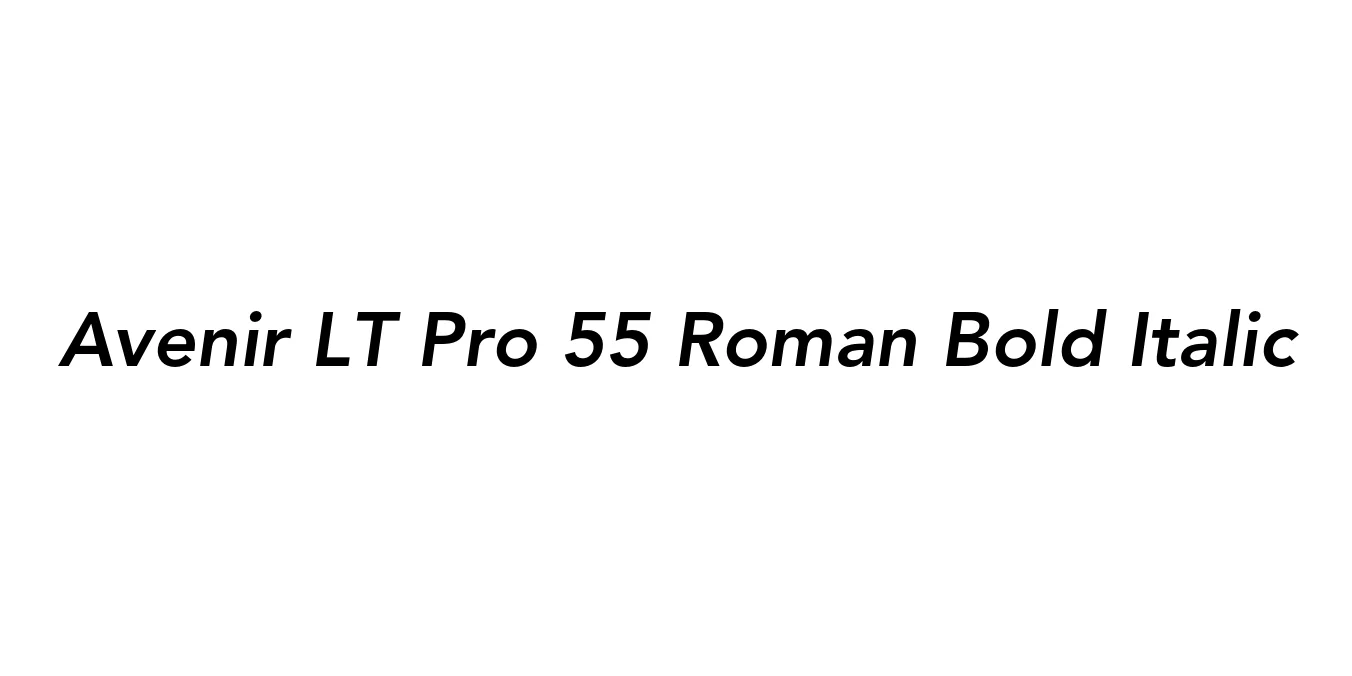
Avenir LT Pro 55 Roman Bold Italic
Designed by Adrian Frutiger
| Category | Geometric Sans-serif |
| Designer | Adrian Frutiger |
| Similar Fonts | Futura, Montserrat, Gotham, Nunito, Museo Sans |
Avenir LT Pro was designed by the legendary type designer Adrian Frutiger in 1988. The name 'Avenir' means 'Future' in French, signifying Frutiger's intention to create a typeface that would stand the test of time while paying homage to geometric sans-serifs like Futura and Erbar. Unlike its predecessors, Avenir was crafted with a more humanistic touch, incorporating subtle variations in stroke weight to improve legibility and provide a warmer, more organic feel.
The 55 Roman Bold Italic variation represents a highly versatile weight within the Avenir LT Pro family. It combines the clean, geometric foundations of the original design with a dynamic slant and strong visual presence. This font is a staple in professional graphic design, favored for its clarity and sophisticated aesthetic, making it ideal for everything from high-end corporate identities to complex editorial systems.
Avenir LT Pro 55 Roman Bold Italic Best Uses
Perfect for creating sophisticated and timeless corporate identities and logos.
Excellent for headers, sub-headlines, and callouts in magazines and books.
Highly readable for mobile application interfaces and website navigation.
Ideal for clean, impactful messaging in both print and digital marketing materials.